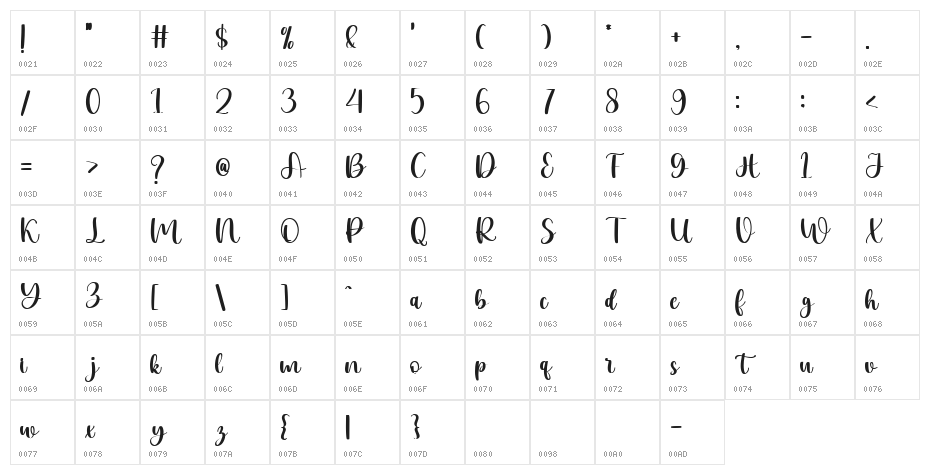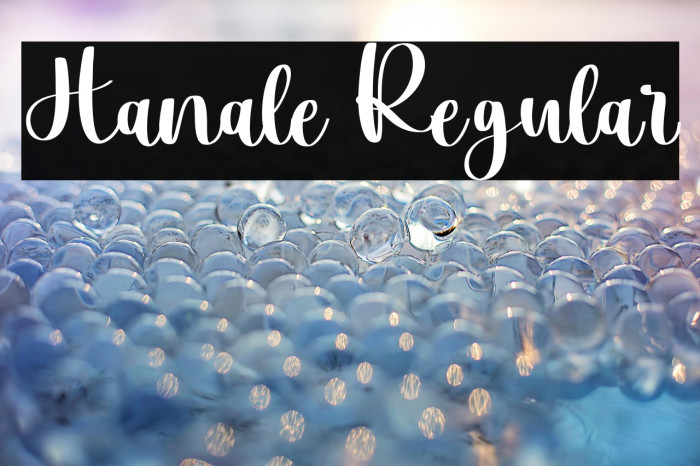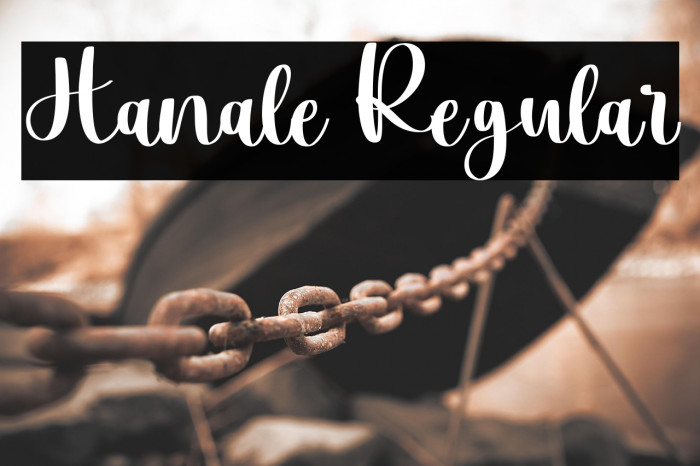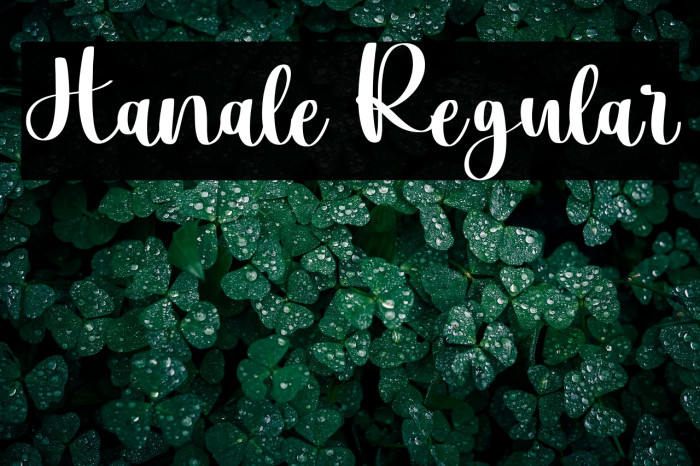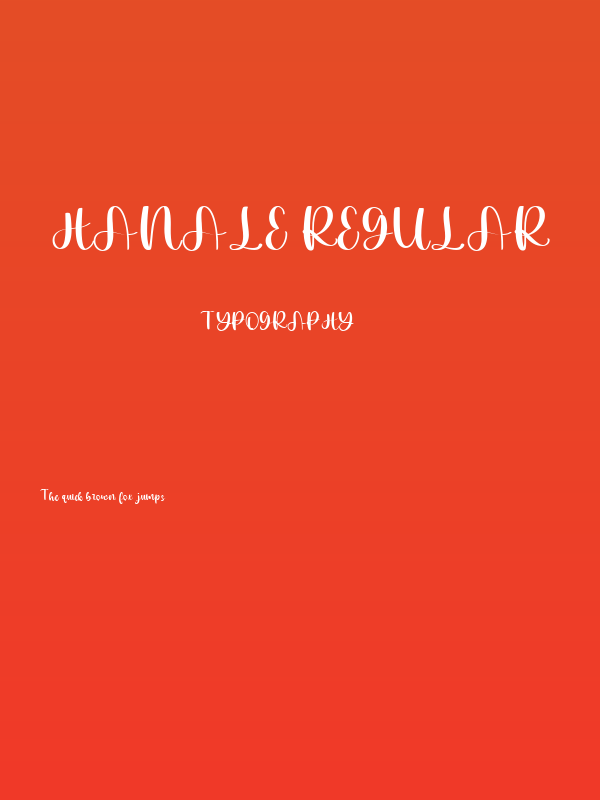
Hanale Regular Font
Hanale Regular Description
A playful, flowing script font with bold, rounded strokes and prominent loops, evoking a hand-lettered, calligraphic style. The characters are connected in a cursive manner, with high contrast between thick and thin lines, and a lively, informal appearance.
| Overall Style | Decorative, Handwritten, Modern |
| Use Case | Logos, Headlines, Invitations, Decorative text |
| Proposed Projects | Wedding invitations, greeting cards, branding, social media graphics, posters, event signage. |